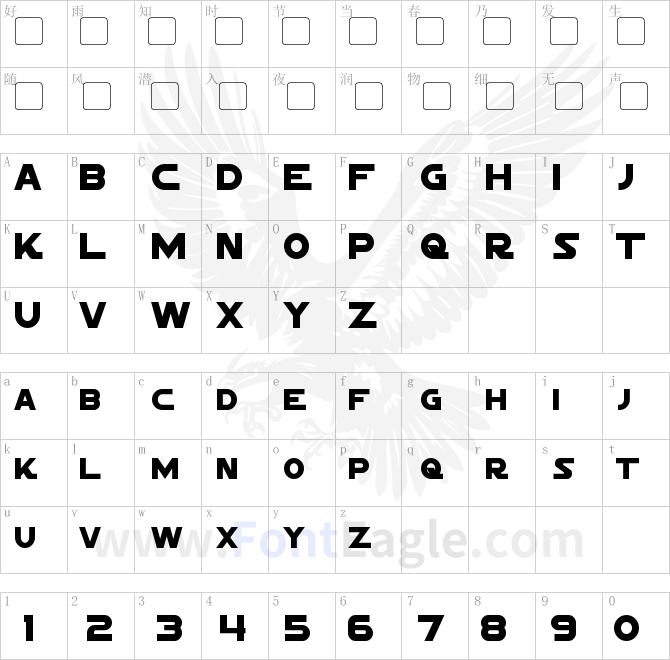
- Font name:Sigma Five Marquee
- Font Subfamily ID:Sigma Five Marquee:Version 1.10
- Font Full Name:Sigma Five Marquee
- Font Version:Version 1.10 April 15, 2015
- Postscript:SigmaFiveMarquee